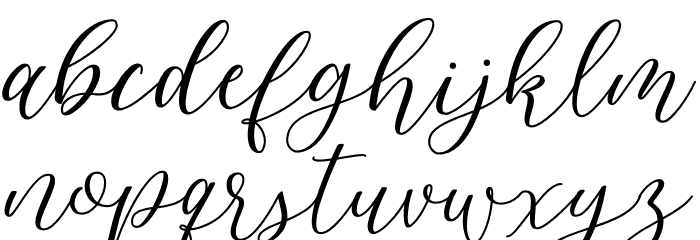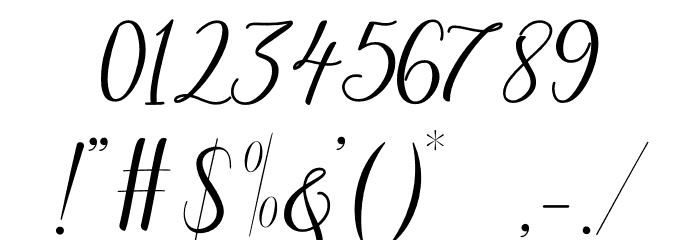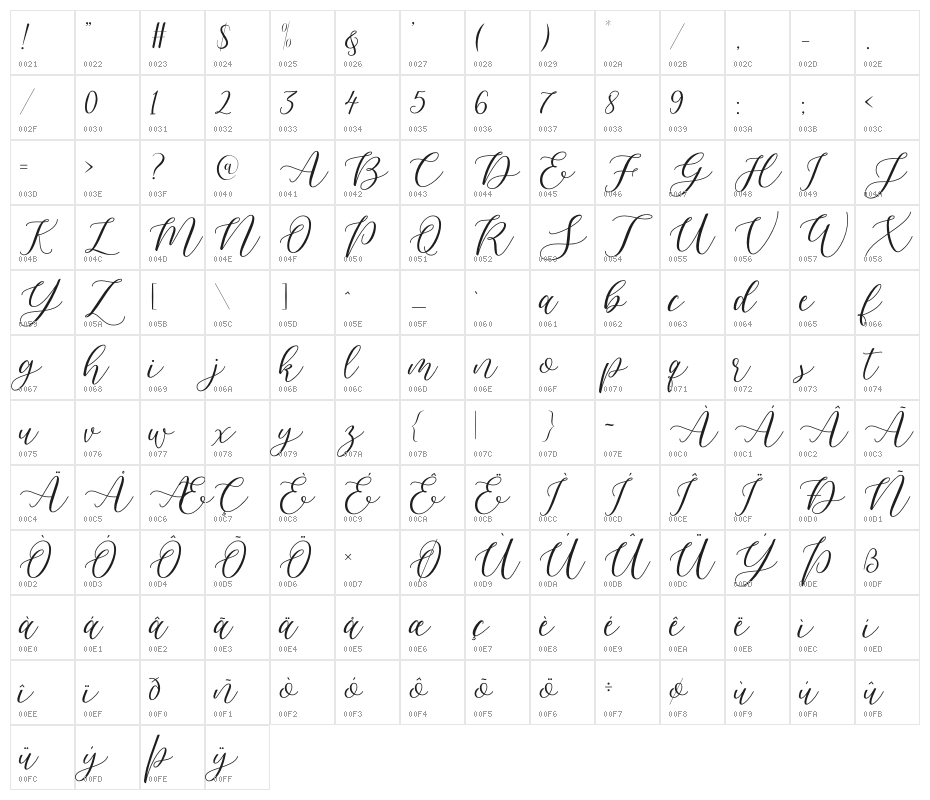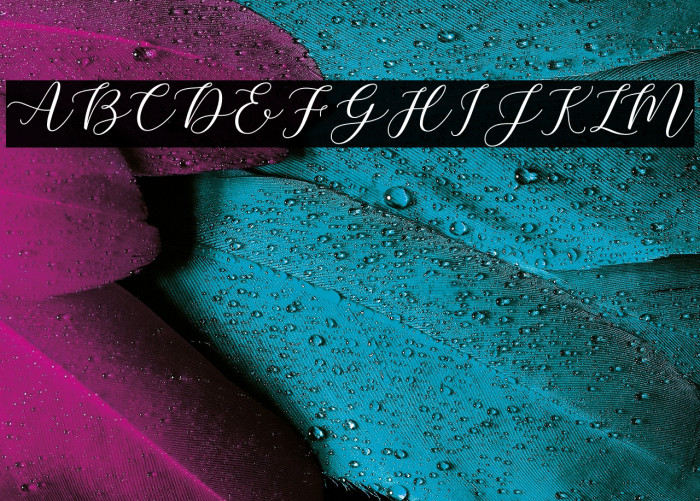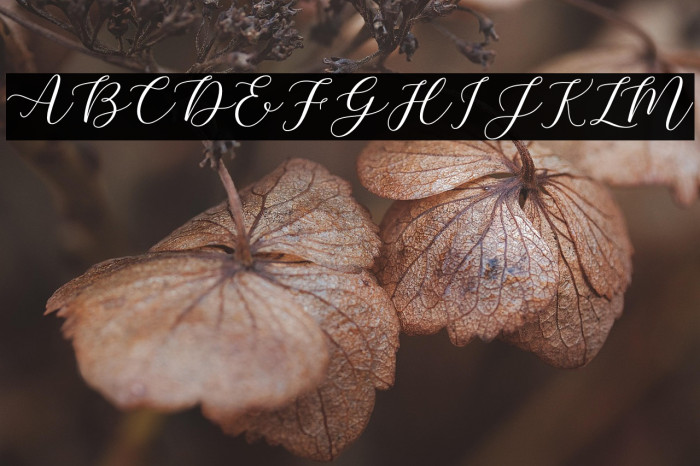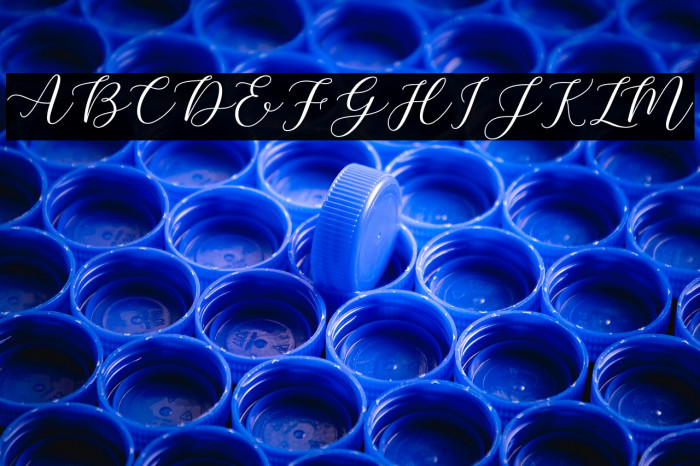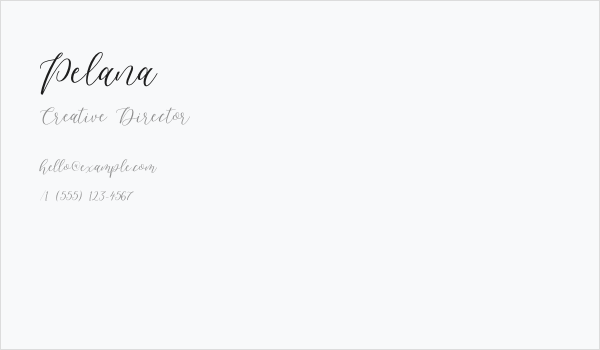
Pelana Font
This elegant script font features flowing, cursive letters with a sophisticated and graceful appearance. The uppercase letters are characterized by sweeping curves and flourishes, giving them a decorative and artistic feel. The lowercase letters maintain a consistent flow, with smooth connections between each character, enhancing the font's readability. The numerals and special characters are designed to complement the overall style, maintaining the same fluidity and elegance. This font is ideal for projects that require a touch of class and sophistication, such as wedding invitations, branding, and high-end product packaging.
A graceful and elegant script font with flowing, cursive letters.
- Font: Pelana
- Proposed Projects: Wedding invitations, luxury branding, elegant product packaging.
- Category: Script
- Overall Style: Elegant
- Use Case: Logos, Invitations, Branding